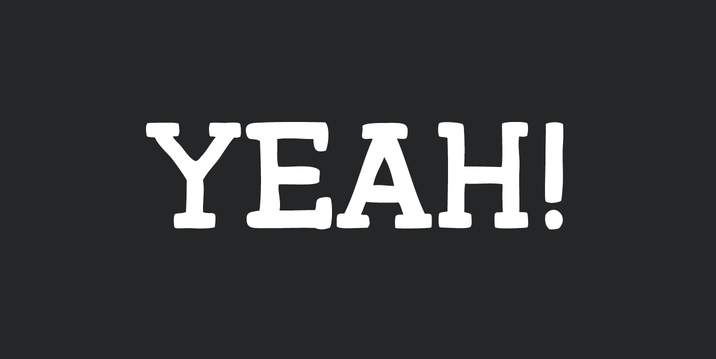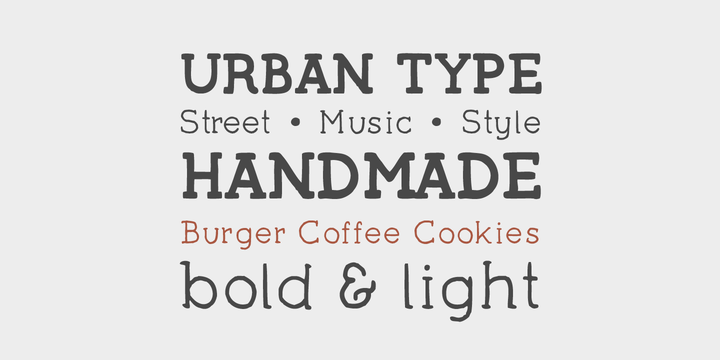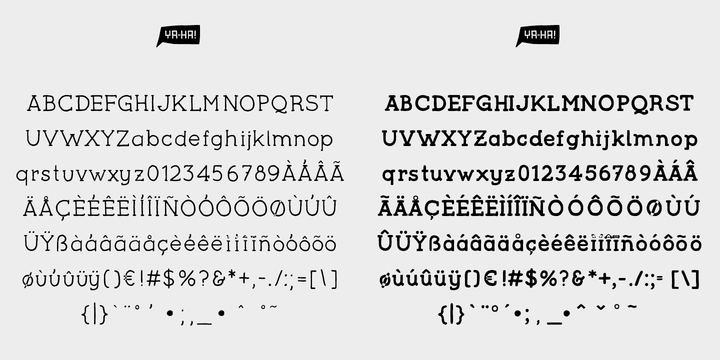
Yaa Type Font Family
Yaa! Type is a hand-sketched headline font. The family contains a light and bold weight; both complement each other perfectly.
Created solely by me from sketch by hand and then digitized, yaa! Type makes a perfect font to create the hand-made character look, or to supplement illustrations with typography.